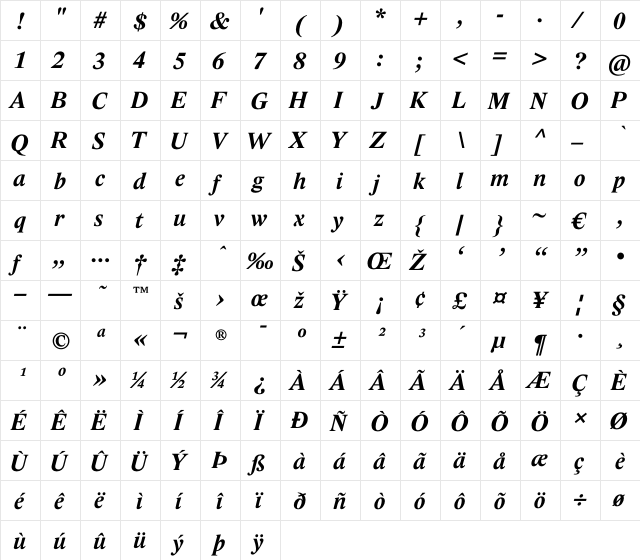
Lido STF CE Bold Italic
Design Context for Lido STF CE Typeface
Lido STF CE is a composed and adaptable typeface that performs quietly and consistently across a wide range of design contexts. The slanted form adds forward momentum and visual energy. The heavy weight commands attention and anchors typographic hierarchies.
Pro Tip: Use Lido STF CE for emphasis, pull quotes, and subheadings where its slanted energy can add rhythm to the layout.